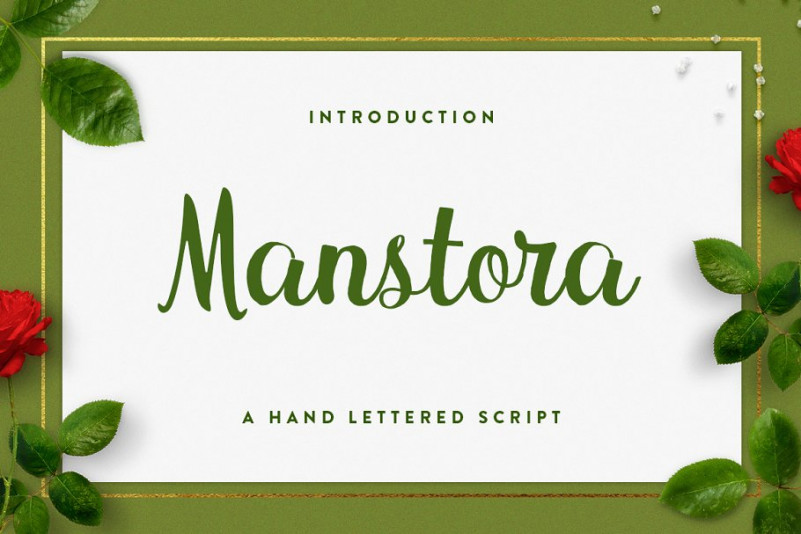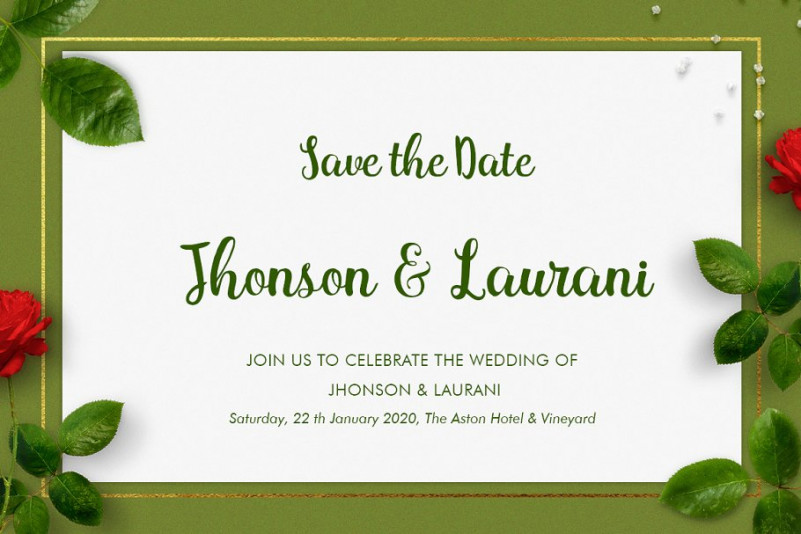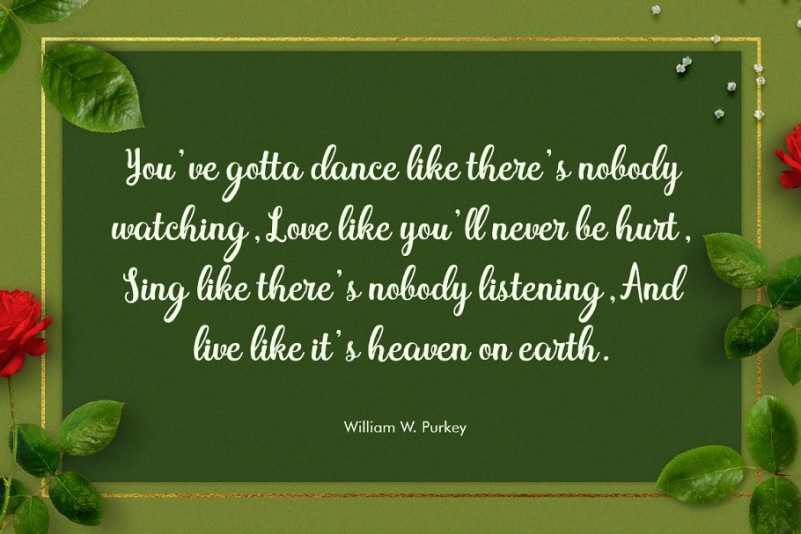
Manstora Font
Manstora Script is a handlettered script font, dynamic and pretty with swashes. Can used for various purposes. such as the title, signature, logo, wedding invitations, letterhead, signage, labels, newsletters, posters, badges, etc.
Manstora Script features Open type feature, including initial and terminal letters,ligatures and International support for most Western Languages is included.